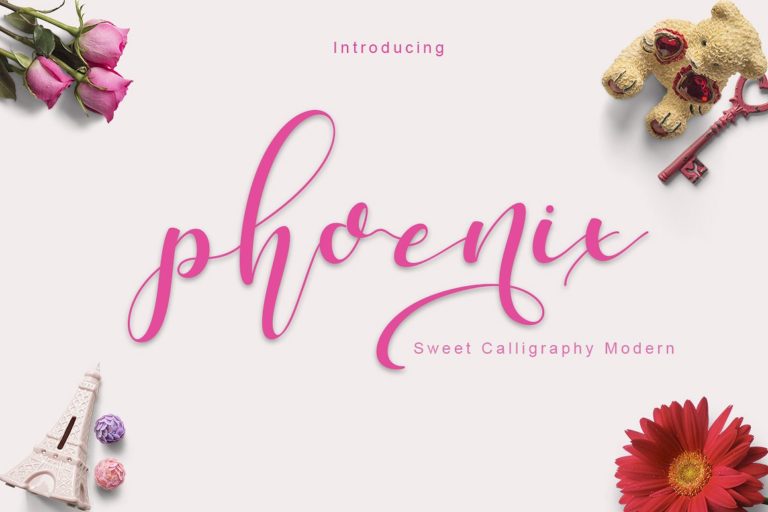
Phoenix Script Font
Introducing Phoenix Font. Phoenix a sweet calligraphy modern script style, decorative characters and a dancing baseline! So beautiful on invitation like greeting cards, branding materials, business cards, quotes, posters, and more!!